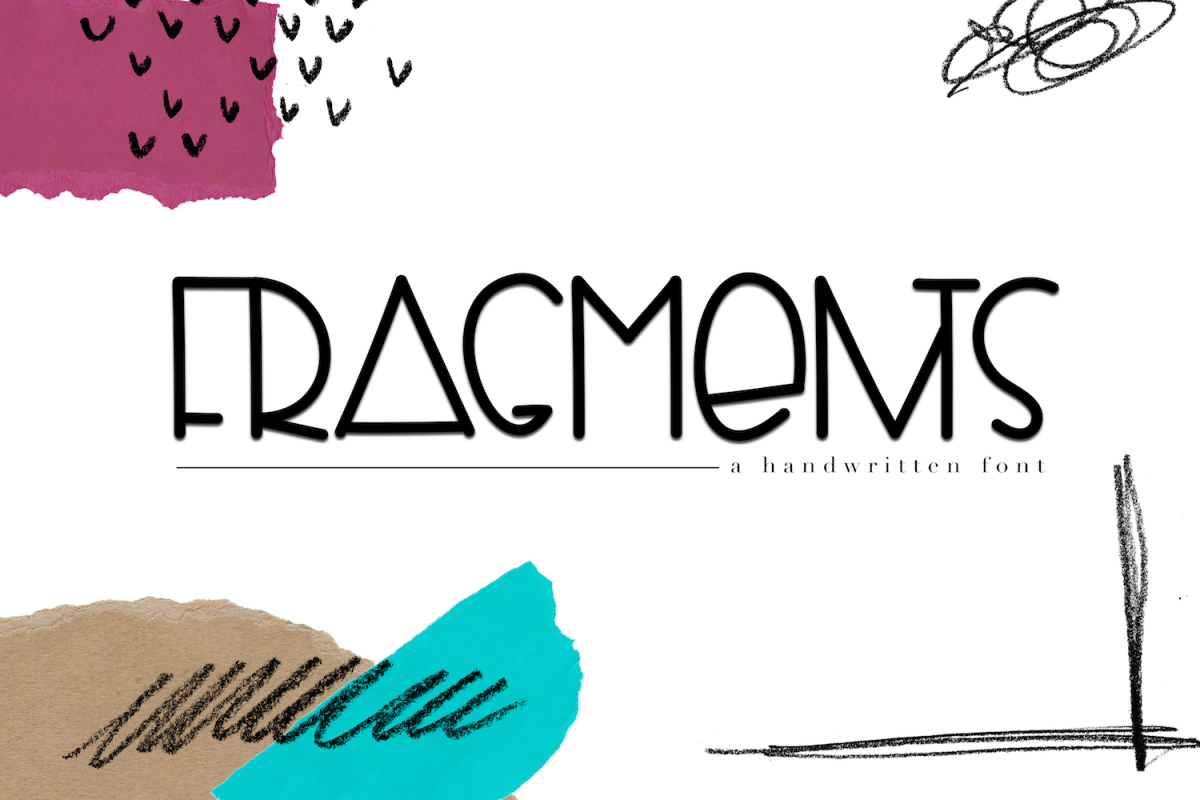
Fragments - A Fun Handwritten Font
Fragments
Fragments is a cute & modern handwritten font.
This font is perfect for quotes, headings, blogs, logos, invitations and more!